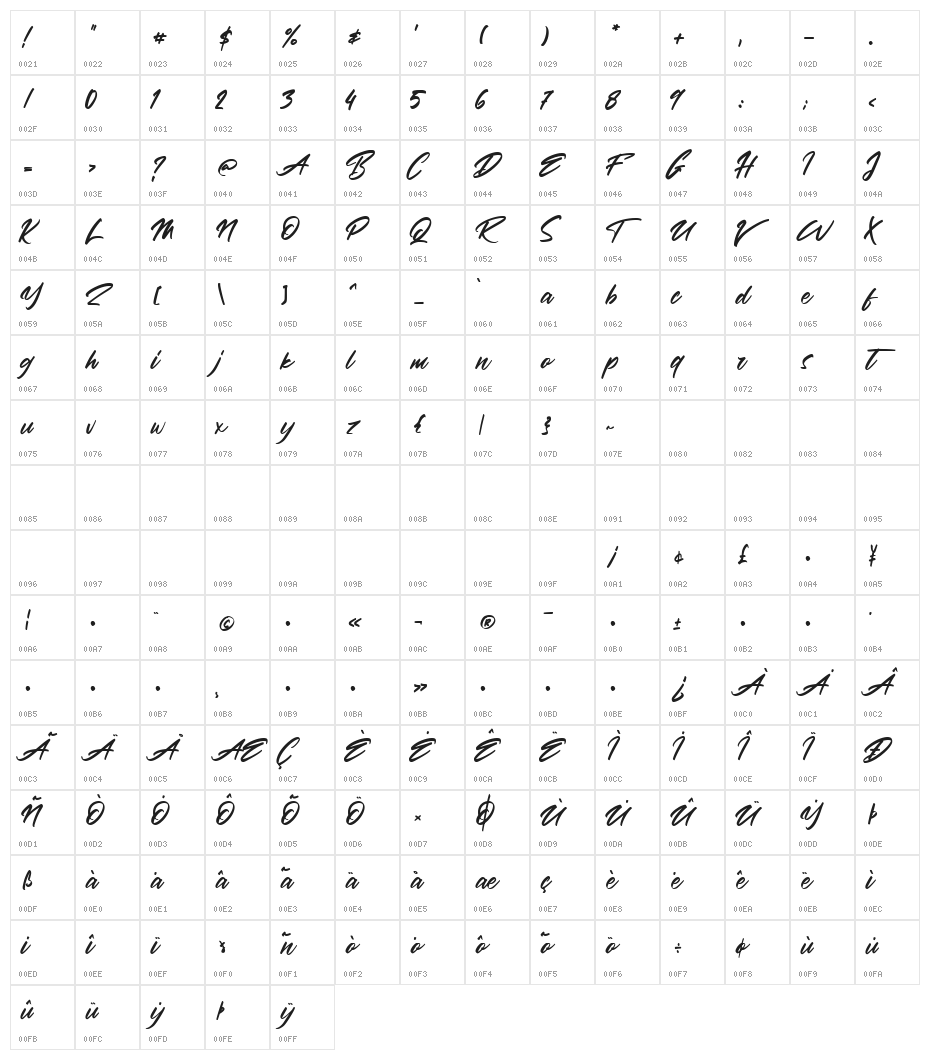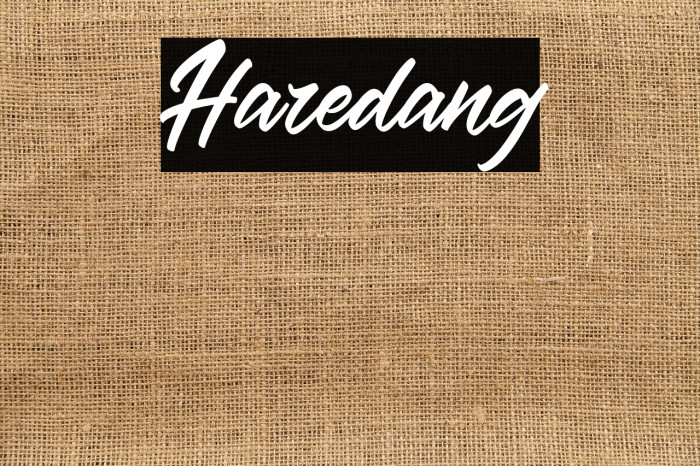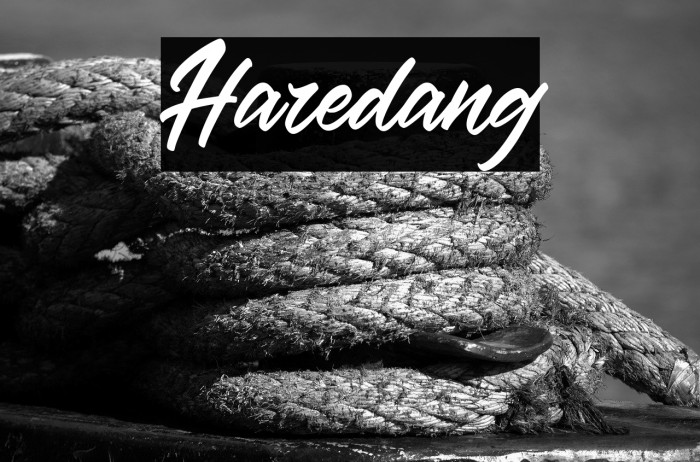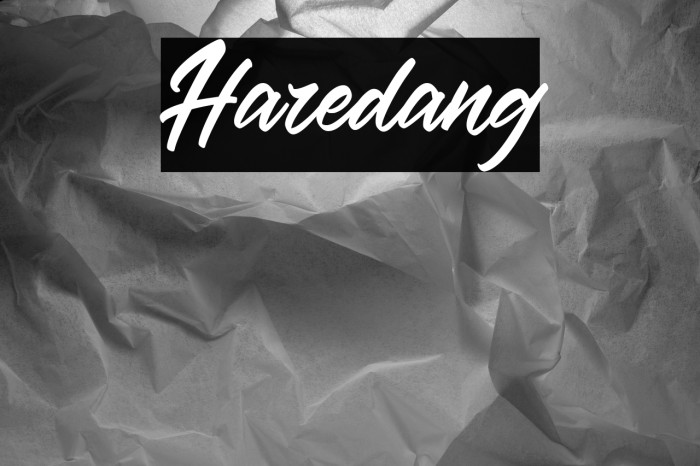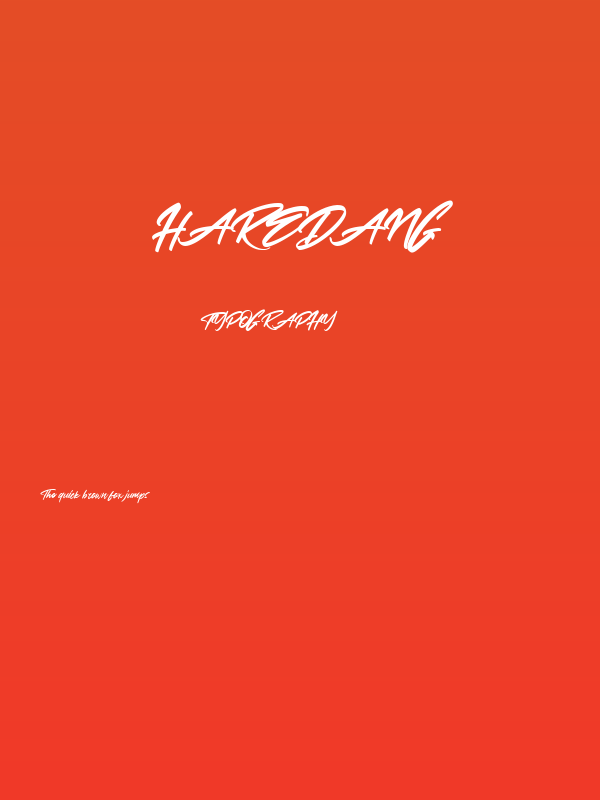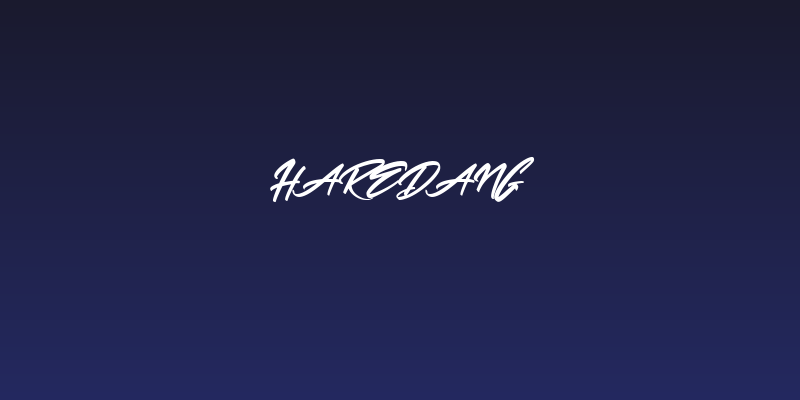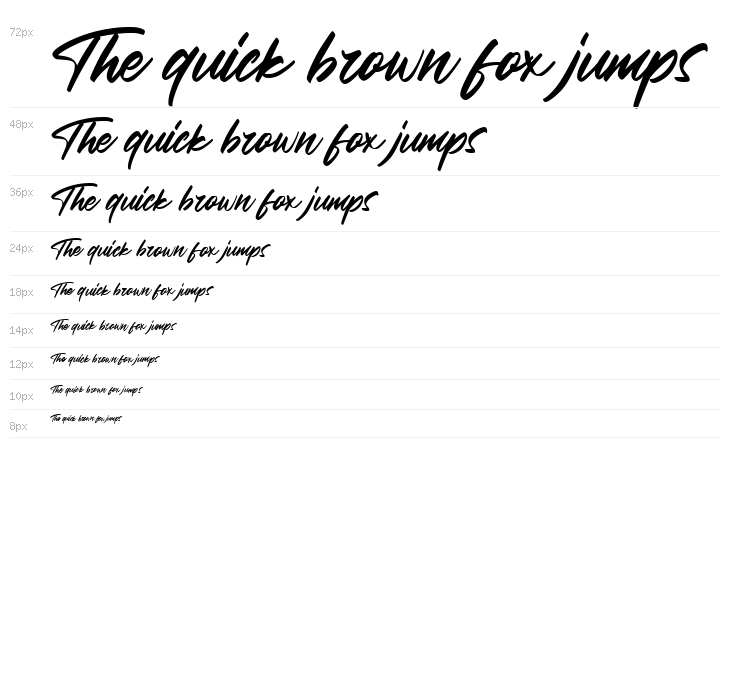
Haredang Font
Haredang Description
This font exudes a dynamic and energetic style with its bold, flowing script. The characters are designed with a sense of movement, featuring smooth, sweeping curves and a slightly slanted orientation. The uppercase letters are particularly striking, with exaggerated flourishes that add a touch of elegance and flair. The lowercase letters maintain a consistent rhythm, making the font highly legible despite its decorative nature. Numbers and special characters are crafted with the same attention to detail, ensuring a cohesive look across all text. This font is perfect for projects that require a personal, handwritten touch.
| Use Case | Logos, Headlines, Invitations |
| Proposed Projects | Ideal for wedding invitations, greeting cards, branding, and logo design. |